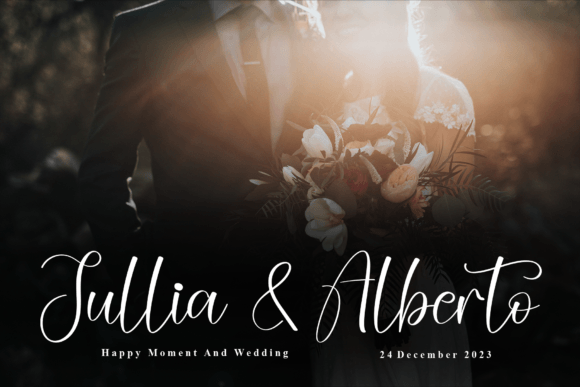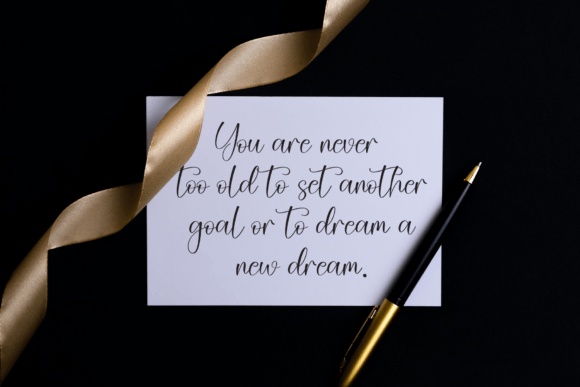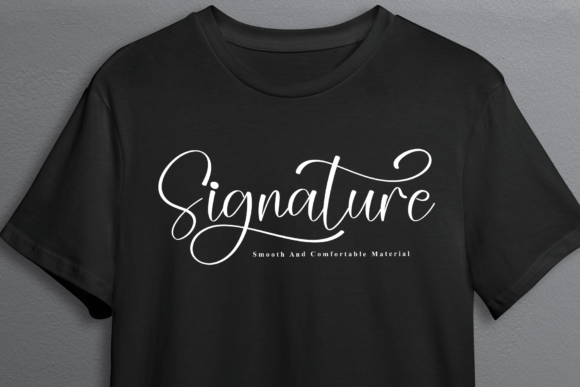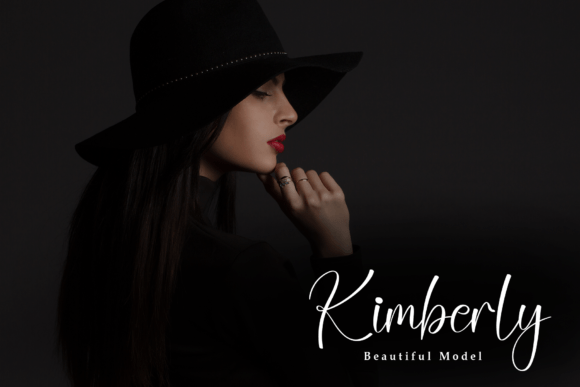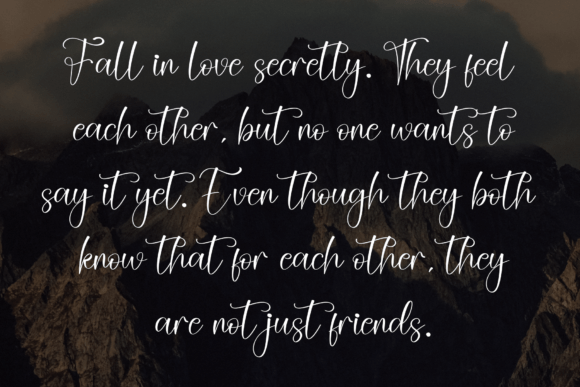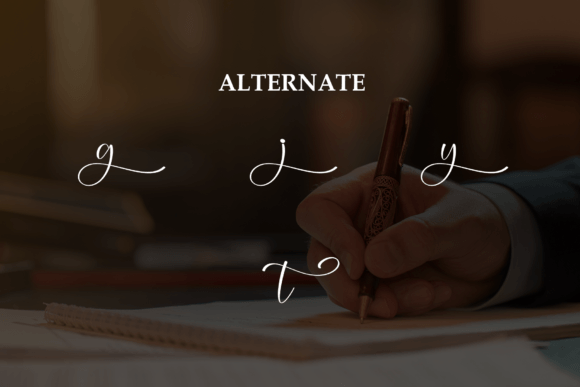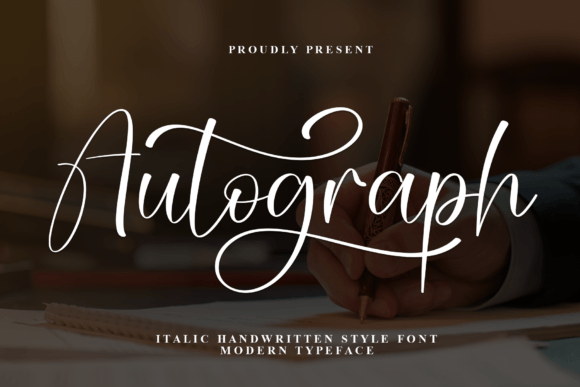
Introducing Autograph Font: The Timeless Handwritten Font for Stunning Designs
Are you a designer or crafter looking for a font that can add a touch of elegance and sophistication to your designs? Look no further than Autograph Font, a lovely and timeless handwritten font that is perfect for creating eye-catching logos, branding, and quotes.
The Unique Charm of Autograph Font
What sets Autograph Font apart from other fonts is its unique and beautiful touch. Every letter has been carefully crafted to have its own distinct character, making it a true standout in the world of typography. Whether you’re looking to create a stunning logo, a captivating quote, or a beautiful brand identity, Autograph Font is the perfect choice.
Why Choose Autograph Font?
So why choose Autograph Font over other fonts? Here are just a few reasons why designers and crafters love working with this beautiful font:
• Timeless appeal: Unlike trendy fonts that quickly go out of style, Autograph Font has a timeless quality that will never go out of fashion. Its classic, elegant look will continue to inspire and delight for years to come.
• Versatility: Autograph Font is incredibly versatile, making it perfect for a wide range of design projects. Use it to create stunning logos, branding, and quotes, or incorporate it into your craft projects for a personal touch.
• Unique character: As mentioned earlier, every letter in Autograph Font has its own unique character, making it a true standout in the world of typography. This font is sure to add a touch of personality to your designs.
Autograph Font is a dream come true for designers and crafters. Whether you’re looking to create stunning logos, branding, and quotes, or add a personal touch to your craft projects, this font is the perfect choice. Here are just a few ways you can use Autograph Font:
• Logos and branding: Create a stunning logo or brand identity with Autograph Font. Its timeless appeal and elegant look make it perfect for businesses and organizations looking to make a lasting impression.
• Quotes and posters: Add a touch of elegance to your quotes and posters with Autograph Font. Its beautiful, flowing script is sure to captivate and inspire.
• Craft projects: Incorporate Autograph Font into your craft projects for a personal touch. Whether you’re creating handmade cards, gift tags, or other paper crafts, this font is sure to add a touch of personality.
Tips for Using Autograph Font
Here are a few tips for getting the most out of Autograph Font:
• Experiment with sizes and colors: Don’t be afraid to experiment with different sizes and colors when using Autograph Font. Its elegant look works beautifully in a variety of sizes and colors.
• Pair it with other fonts: Autograph Font pairs beautifully with other fonts. Try pairing it with a bold, modern font for a stunning contrast.
• Use it consistently: For a cohesive look, use Autograph Font consistently throughout your design. This will help to create a strong brand identity and make your design more recognizable.
In conclusion, Autograph Font is a lovely and timeless handwritten font that is perfect for creating eye-catching logos, branding, and quotes. Its unique and beautiful touch makes it a standout in the world of typography, and its versatility and ease of use make it a dream to work with. Whether you’re a designer or crafter, Autograph Font is sure to become a favorite in your collection.